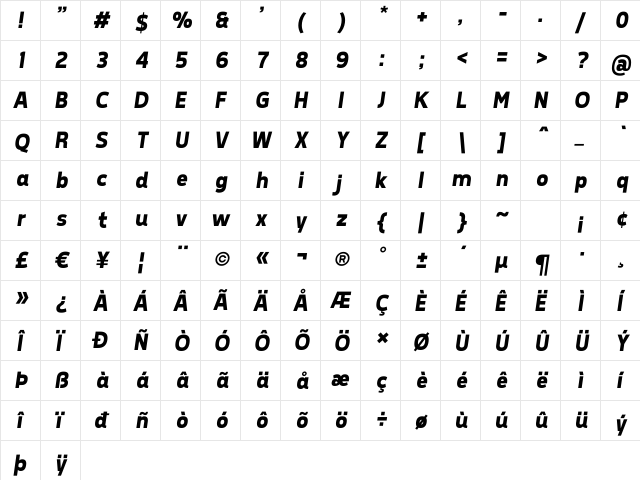
Tepeno Sans Bold Italic
| Designer | Jayvee D. Enaguas (Grand Chaos) |
Design Context for Tepeno Sans Typeface
Tepeno Sans is a composed and adaptable typeface that performs quietly and consistently across a wide range of design contexts. The slanted form adds forward momentum and visual energy. Its bold stroke weight gives it real presence on the page.
Pro Tip: Try Tepeno Sans for annotation and caption copy alongside an upright companion — the contrast in angle creates a dynamic but ordered typographic system.